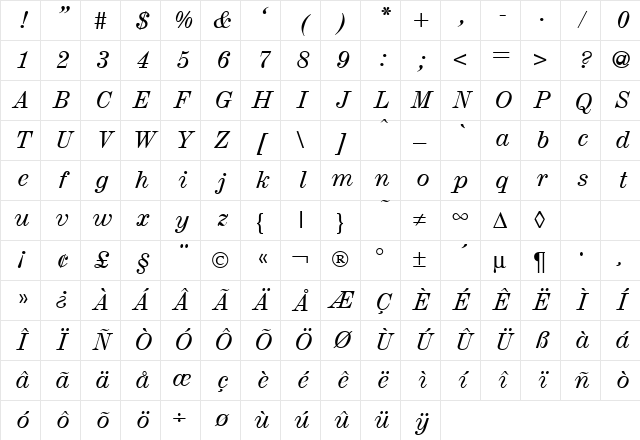
Magazine RegularItalic
Style: RegularItalic
Magazine Family
Design Context for Magazine
Magazine is a composed and adaptable typeface that performs quietly and consistently across a wide range of design contexts. The slanted form adds forward momentum and visual energy.